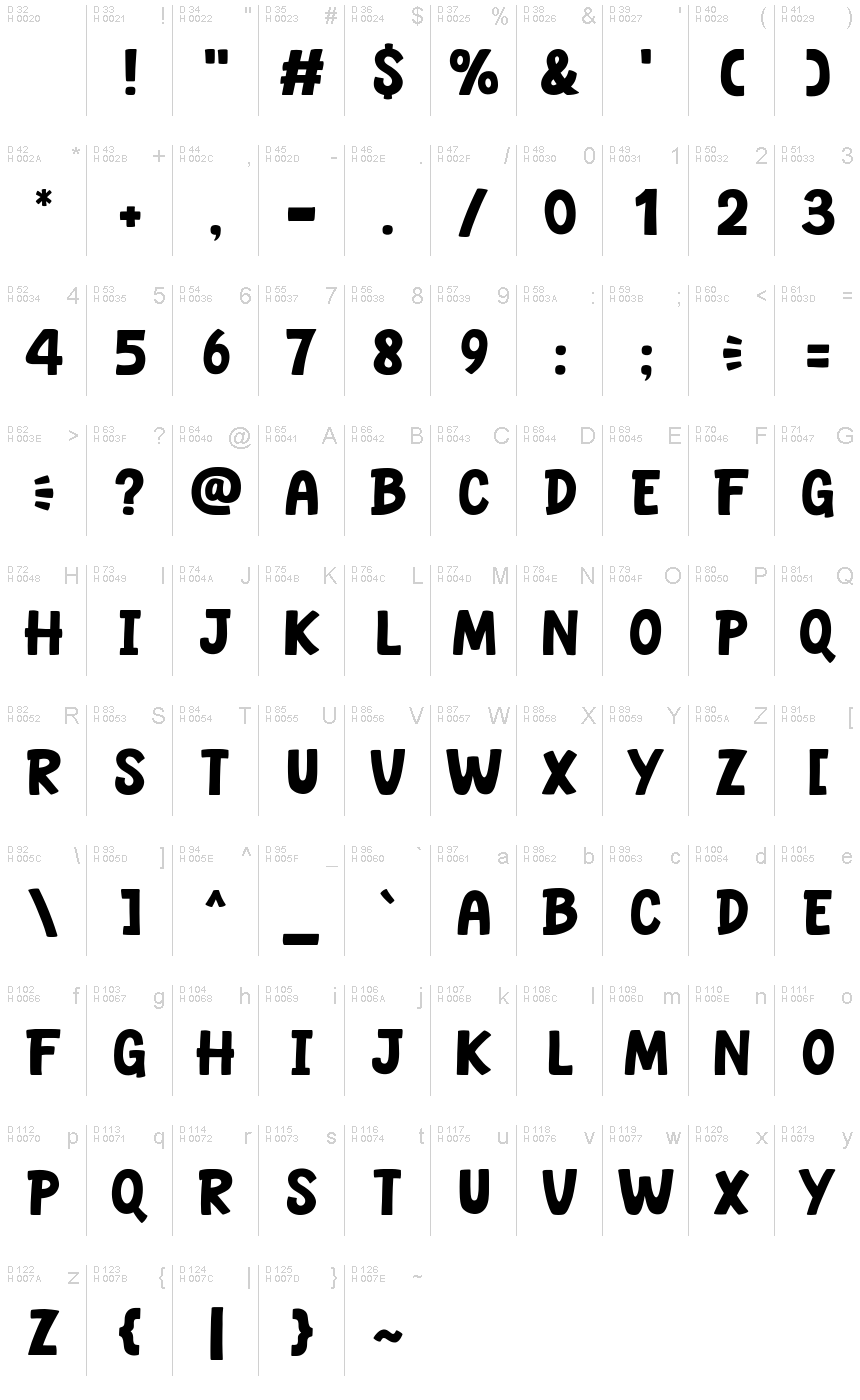
Sohungry
Sohungry brings a playful and appetizing twist to the table, crafted by the imaginative Khurasan. This display font bursts with cartoon flair and a bold weight that adds a chewy, substantial presence to any design. Its rounded edges and whimsical character shapes capture a casual, friendly vibe that's perfect for injecting humor and light-heartedness into creative projects.
With its approachable style, Sohungry is ideal for children's books, party invitations, or restaurant branding that aims to convey warmth and joy. The font’s boldness ensures excellent readability at various sizes, making it versatile for both digital screens and print materials. Its distinct personality can help brands stand out, telling stories that resonate with audiences seeking fun and playfulness in their visual experiences.